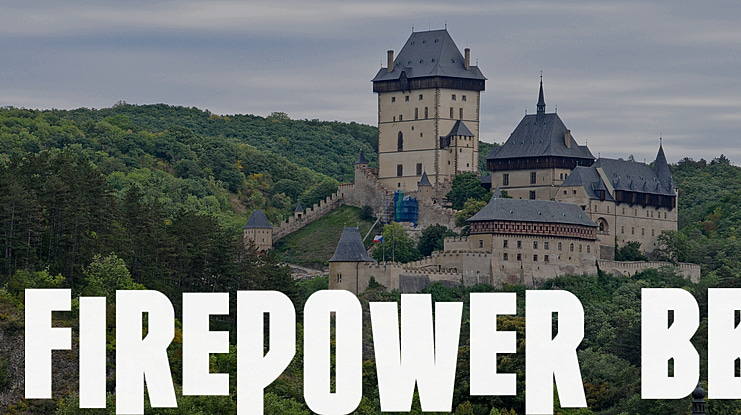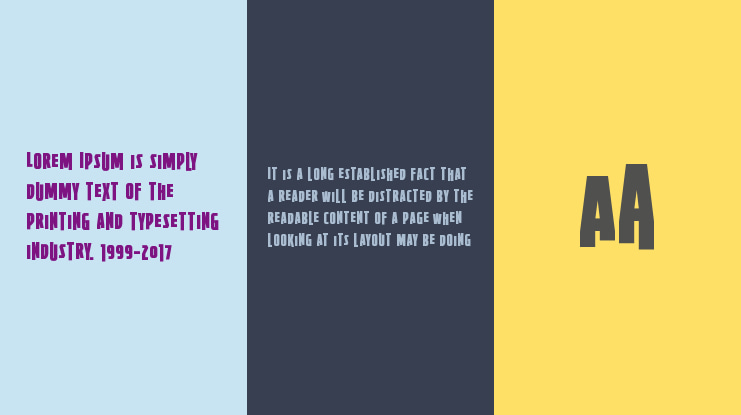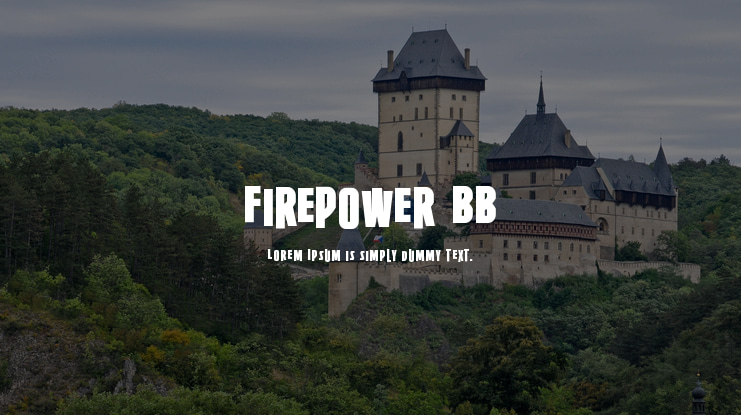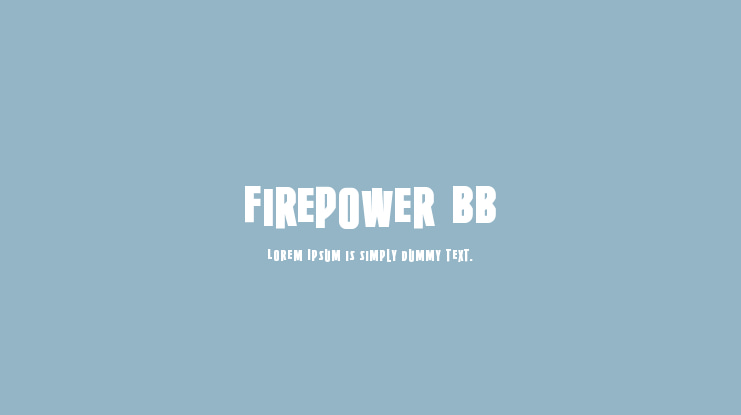
Firepower BB Font Family
I needed something punchy for a Marvel title page and I whipped up some of these letters on the fly, keeping them the same size, but with radically varying letter heights. The result was a pretty cool hard-edged title font-to-be! Comes with Regular and Italic. The upper and lower keys are different heights so you can mix and match!